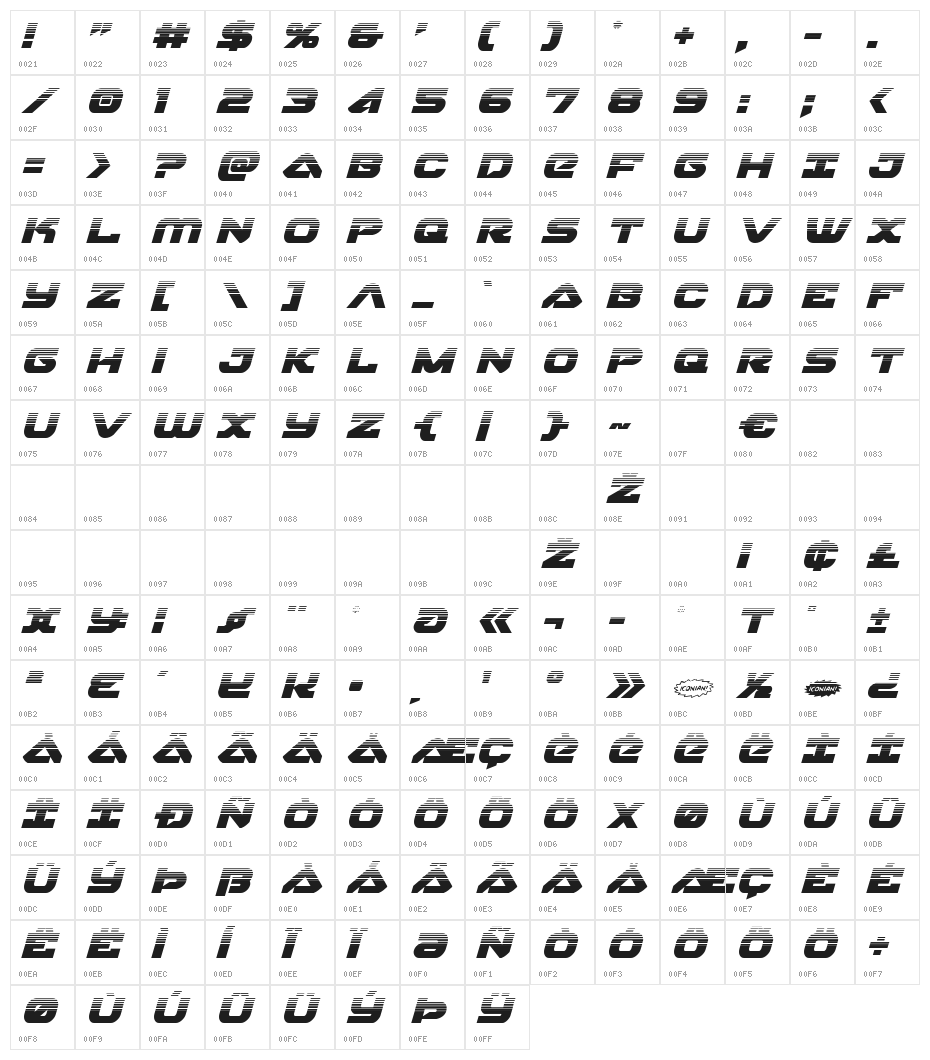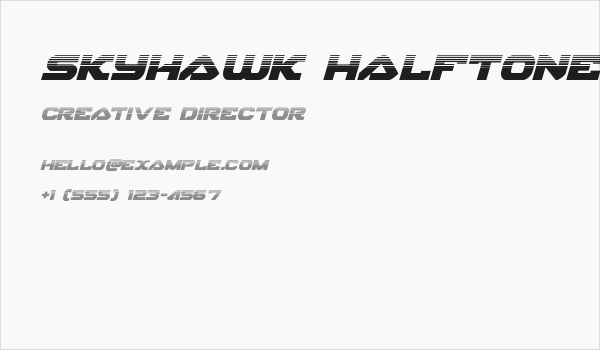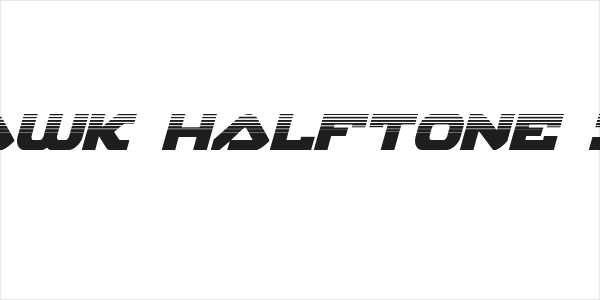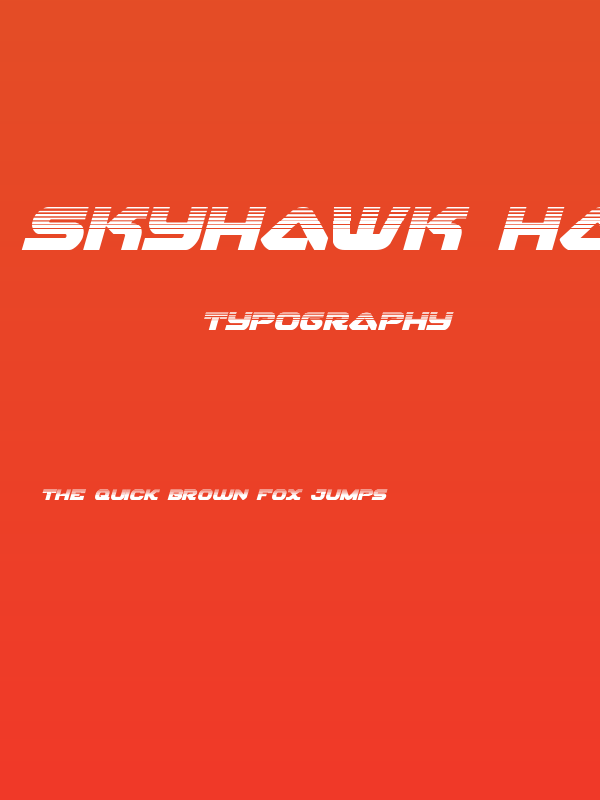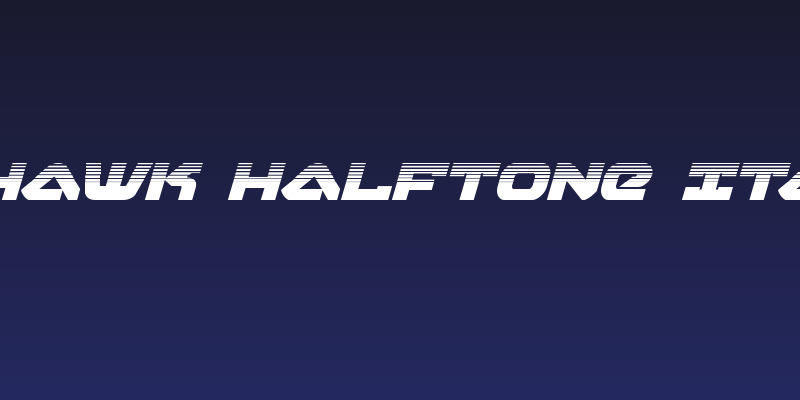
Skyhawk Halftone Italic Font
Skyhawk Halftone Italic Description
This font features a bold, italicized style with a distinctive halftone effect that gives it a dynamic and futuristic appearance. The characters are designed with a series of horizontal lines that create a sense of movement and energy. The uppercase and lowercase letters maintain a consistent style, with sharp angles and a slightly condensed form. The numbers and special characters are equally bold and maintain the same halftone pattern, ensuring uniformity across all glyphs. This font's unique design makes it stand out, perfect for projects that require a modern and edgy look.
Overall StyleFuturistic, Dynamic
Use CaseHeadlines, Logos, Digital Media
Proposed ProjectsIdeal for use in digital media, gaming titles, futuristic branding, and tech-related projects.